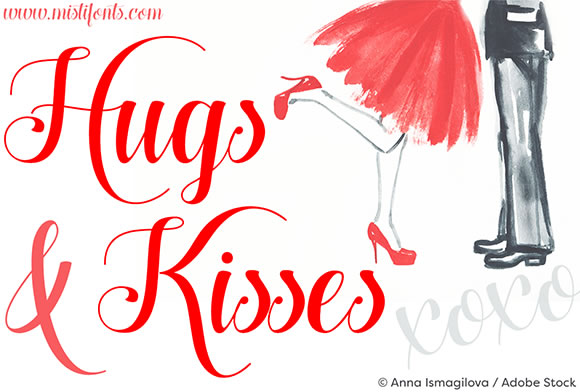
Hugs and Kisses Font
About Hugs and Kisses Font
Hugs and Kisses xoxo is an elegant script font and can be used for various purposes such as headings, logos, invitations, t-shirt designs, greeting cards, posters, labels, book covers, brochures, and much more!